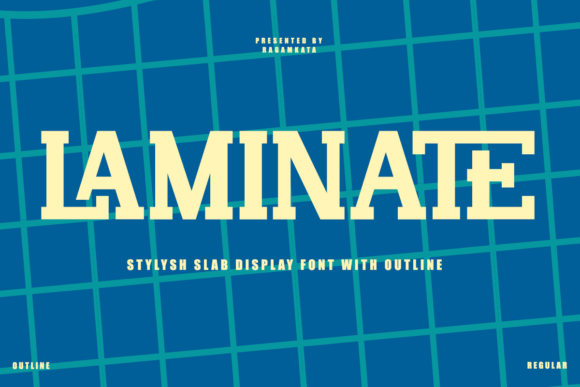
Laminate Font: A Stylish Display Font Inspired by Pop Design Posters
Laminate font is a modern display font that draws inspiration from the iconic pop design posters of the 80s and 90s. This stylish font is perfect for creating eye-catching titles, designing posters, logotypes, merchandise, flyers, packaging, and more. With its bold and edgy aesthetic, Laminate font is sure to make a statement in any design project.
The Inspiration Behind Laminate Font
The Laminate font is inspired by the vibrant and playful design posters of the 80s and 90s. During this era, pop design posters were all the rage, featuring bold typography, bright colors, and quirky graphics. These posters were used to promote everything from concerts and movies to fashion brands and products. The Laminate font captures the essence of this iconic design era, with its bold lines, geometric shapes, and edgy aesthetic.
Example of Laminate font in use
Key Features of Laminate Font
Laminate font boasts a range of key features that make it perfect for a variety of design projects. Some of its notable features include:
- Bold and Edgy Aesthetic: Laminate font features bold lines, geometric shapes, and an edgy aesthetic that’s perfect for making a statement.
- Geometric Shapes: The font features geometric shapes and sharp lines, giving it a modern and sleek look.
- Highly Versatile: Laminate font is highly versatile and can be used for a range of design projects, from posters and flyers to logotypes and packaging.
- Easy to Read: Despite its bold aesthetic, Laminate font is easy to read, making it perfect for titles and headings.
Uses of Laminate Font
Laminate font is perfect for a range of design projects, including:
- Posters and Flyers: Laminate font is perfect for creating eye-catching posters and flyers that grab attention.
- Logotypes and Branding: The font’s bold and edgy aesthetic makes it perfect for logotypes and branding projects.
- Merchandise: Laminate font is great for designing merchandise, such as t-shirts, hats, and bags.
- Packaging: The font’s modern and sleek aesthetic makes it perfect for packaging design.
Laminate font is a stylish display font that’s perfect for creating eye-catching titles, designing posters, logotypes, merchandise, flyers, packaging, and more. With its bold and edgy aesthetic, geometric shapes, and highly versatile design, Laminate font is sure to make a statement in any design project. Whether you’re a graphic designer, artist, or DIY enthusiast, Laminate font is a great addition to your design toolkit.